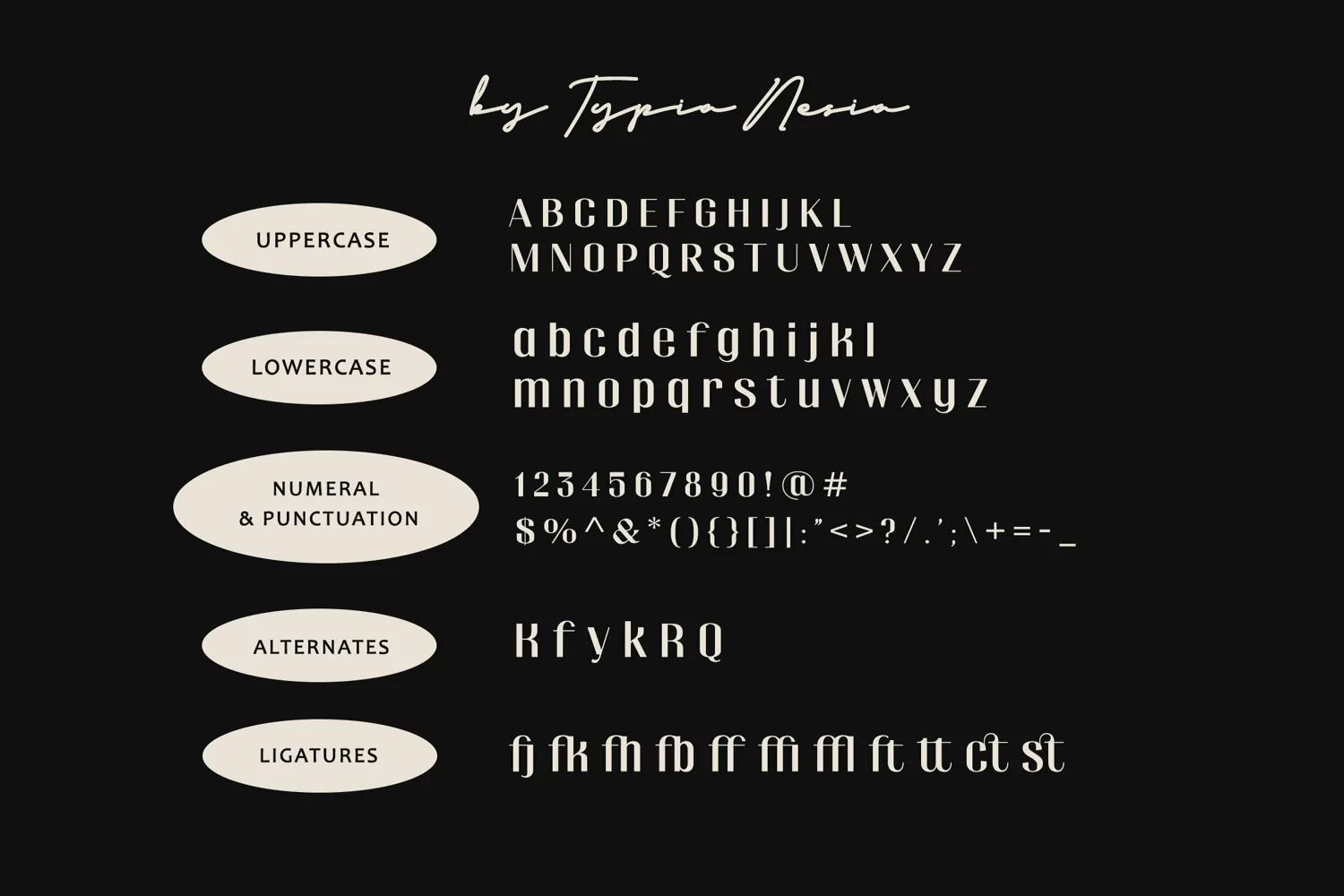
Renkiest - Retro Vintage Classic Bold Sans Serif Display Font
Renkiest Sans Serif Display Font is perfect for your up coming projects. Such as luxury logo and branding, classy editorial design, woman magazine, cosmetic brand, fashion promotional, art gallery branding, museum, historical and architectural design, boutique branding, stationery design, blog design, modern advertising design, card invitation, art quote, home decor, book/cover title, special events and any more.